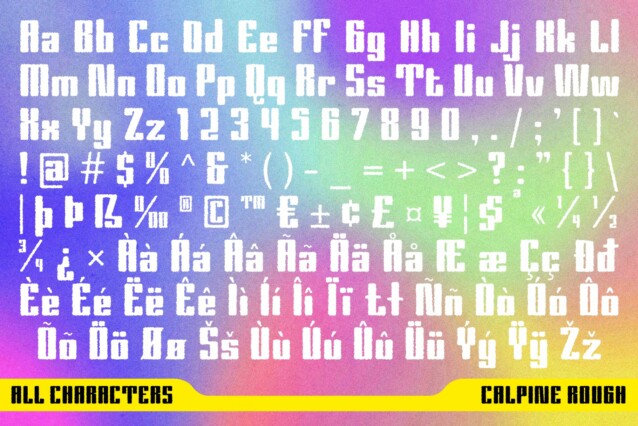
Calpina Rough Font
Calpina Rough Font is a Y2K-style sans serif font that brings back the nostalgia of the 90s and early 2000s with its bold letterforms and retro design elements. Inspired by the energetic and daring styles of that era, this font exudes cheerfulness and fun while capturing the vibrant spirit of Y2K aesthetics.
Bold and Geometric Design
The bold letterforms of Calpina Rough reflect the bold geometric shapes and bright colors typical of Y2K design. This font brings a retro vibe to your projects, making it ideal for designs that aim to evoke the energetic and nostalgic vibes of the turn of the millennium.